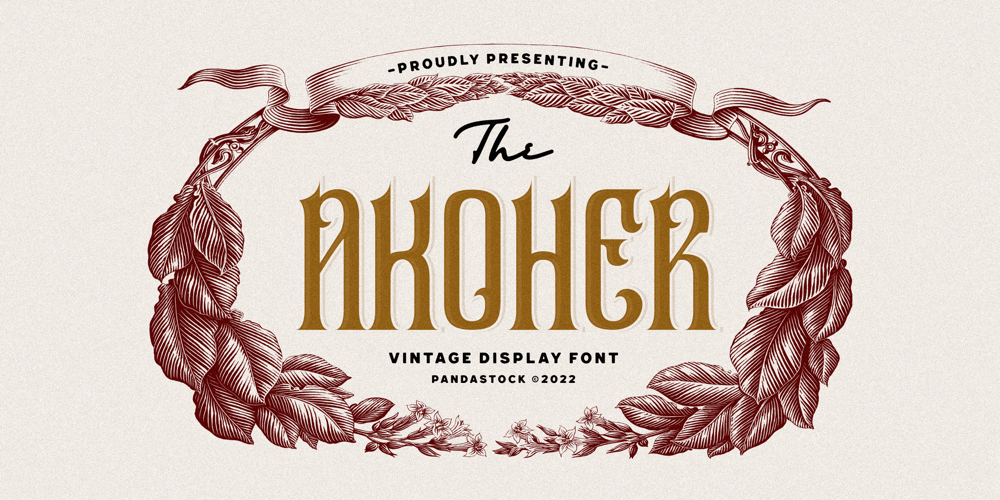
Akoher Font Family was designed by Aulia Savira Putri and published by Imoodev. Akoher contains 1 styles and family package options. Akoher is a vintage display font with visual elegance, smooth curves, and beautiful ligatures clear, making your work look true and attractive.A very versatile font that works in both large and small sizes. This font is suitable for a wide variety of projects such as invitations, logos, branding, magazine, photography, card, product packaging, mugs, quotes, poster, labels, signatures, and more.A font that is perfect for all business sectors including personal projects, studio, corporate, creative agency, industrial, company, etc.